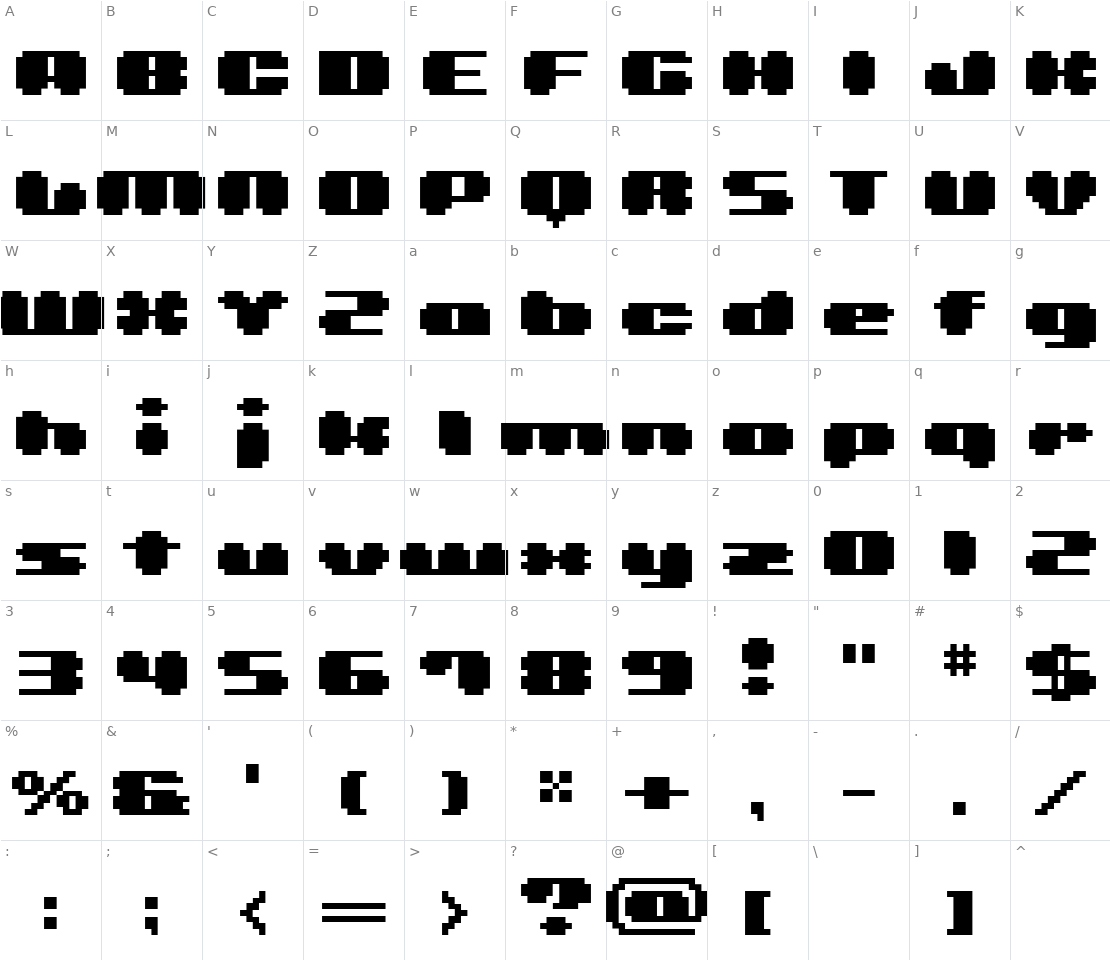
BM Leaves
by BitmapMania
BM Leaves is a heavy bitmap display face from BitmapMania with thick, blocky pixel letterforms that carry serious visual weight. The chunky construction gives it a retro digital feel, like text rendered on low-resolution hardware where every pixel had to count. Best used for headlines, game interfaces, and display work where you want bold, unapologetically pixelated type.